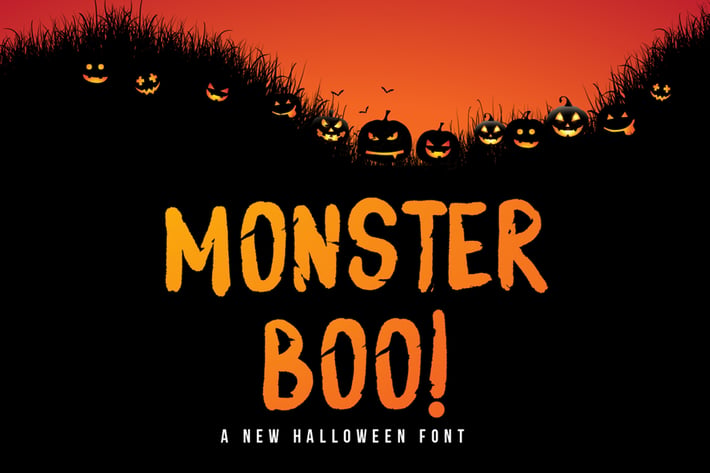
Monster Boo - Halloween Font
Monster Boo font will turn any creative idea into a true standout. Perfect fit for all of your logos, branding, social media, etc.
Get creative with its unique playfulness, and use it to brighten up any crafting project!